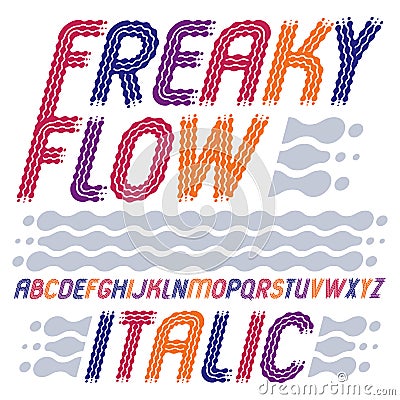
Set of trendy pop vector capital English alphabet letters isolated. Rounded bold italic retro 70s font, typescript for use in logo design. Made using flow, wavy lines.